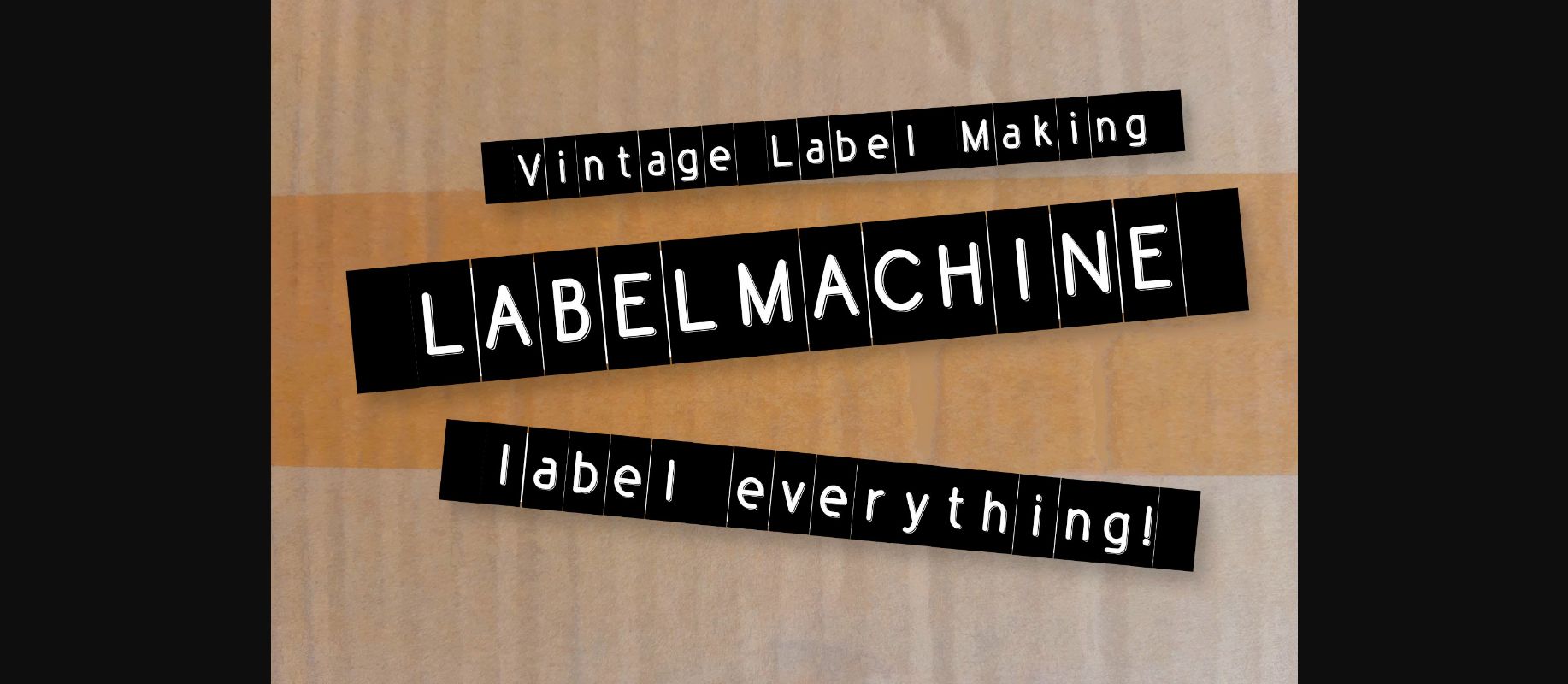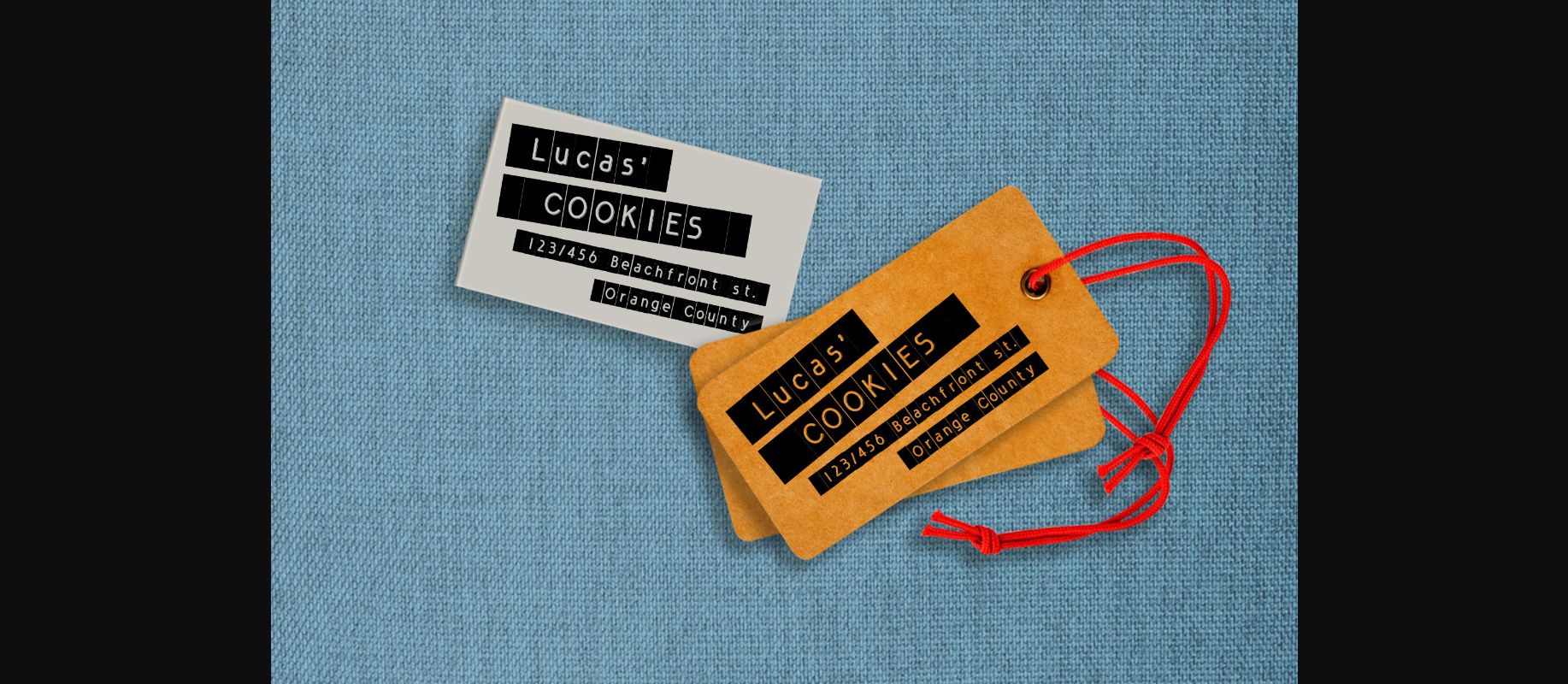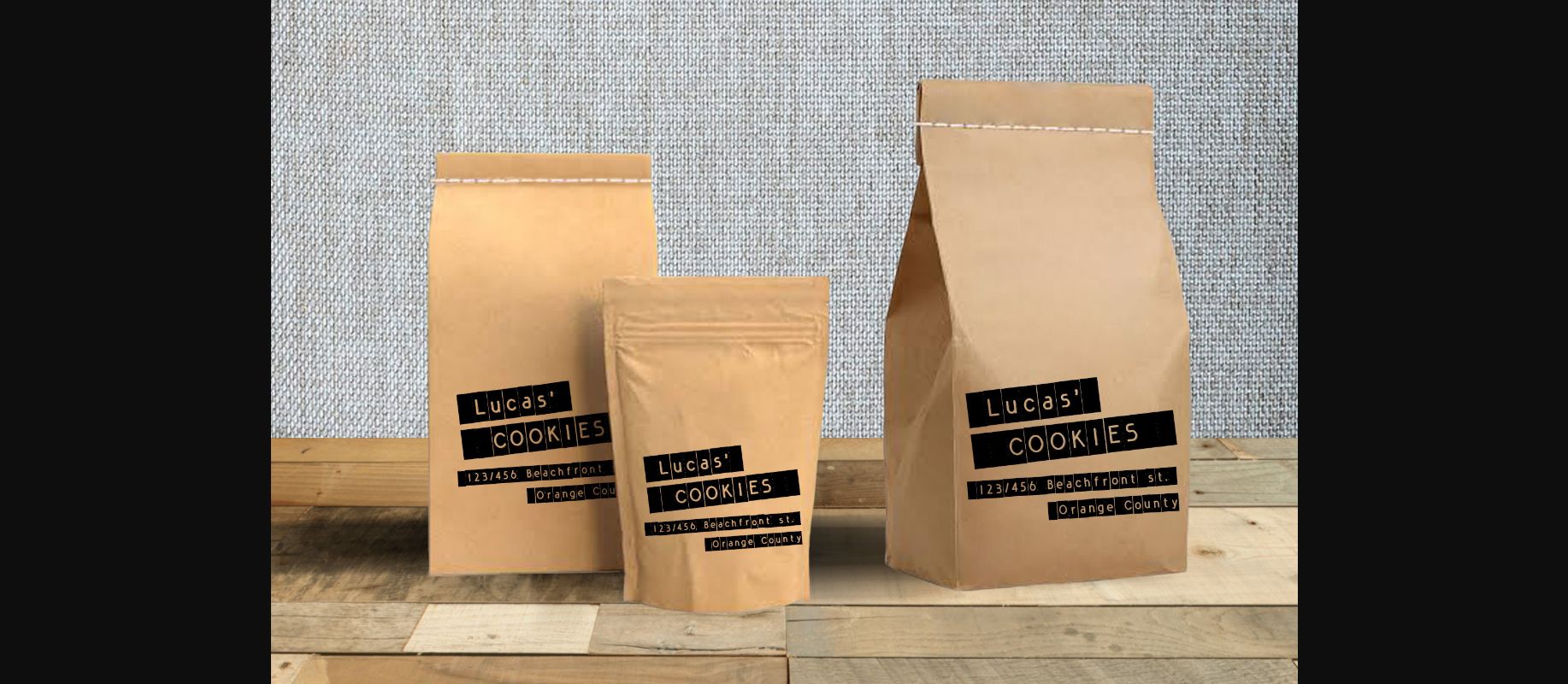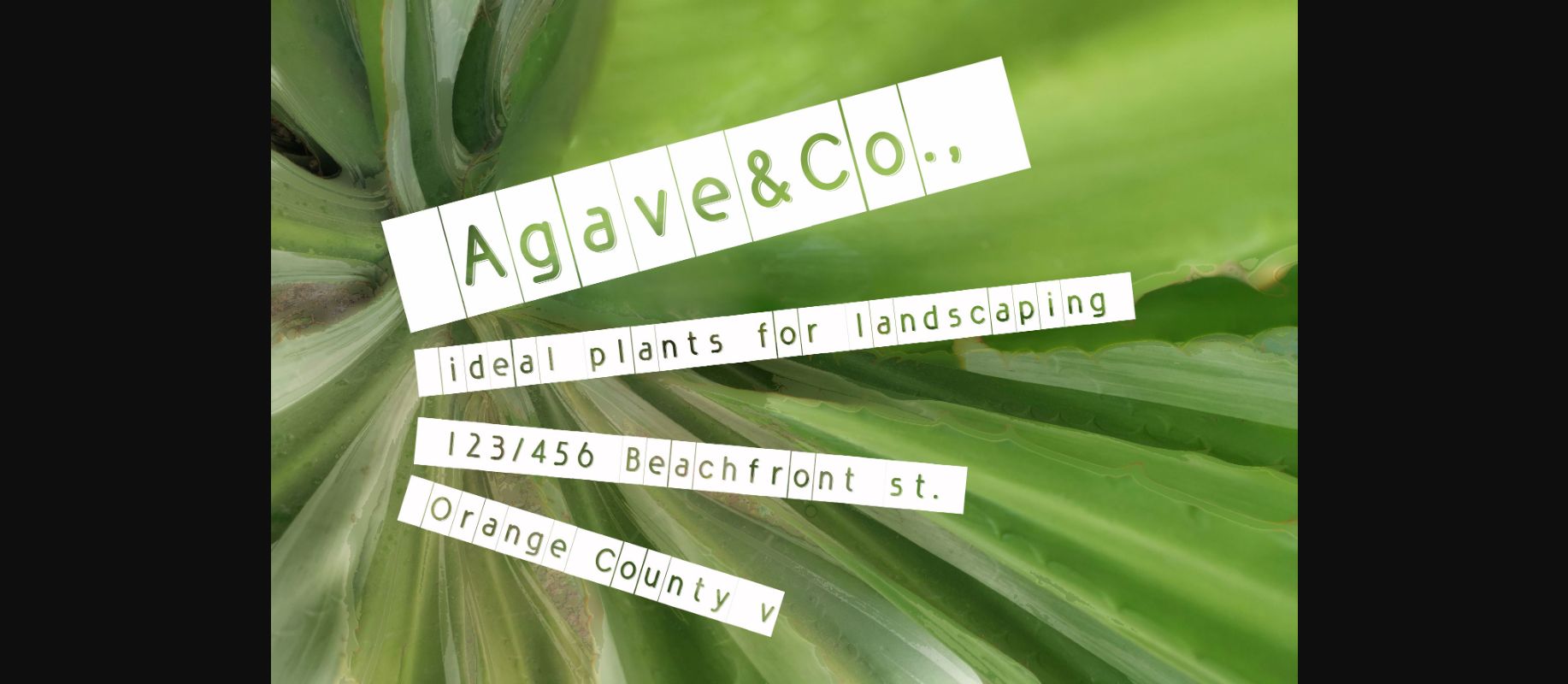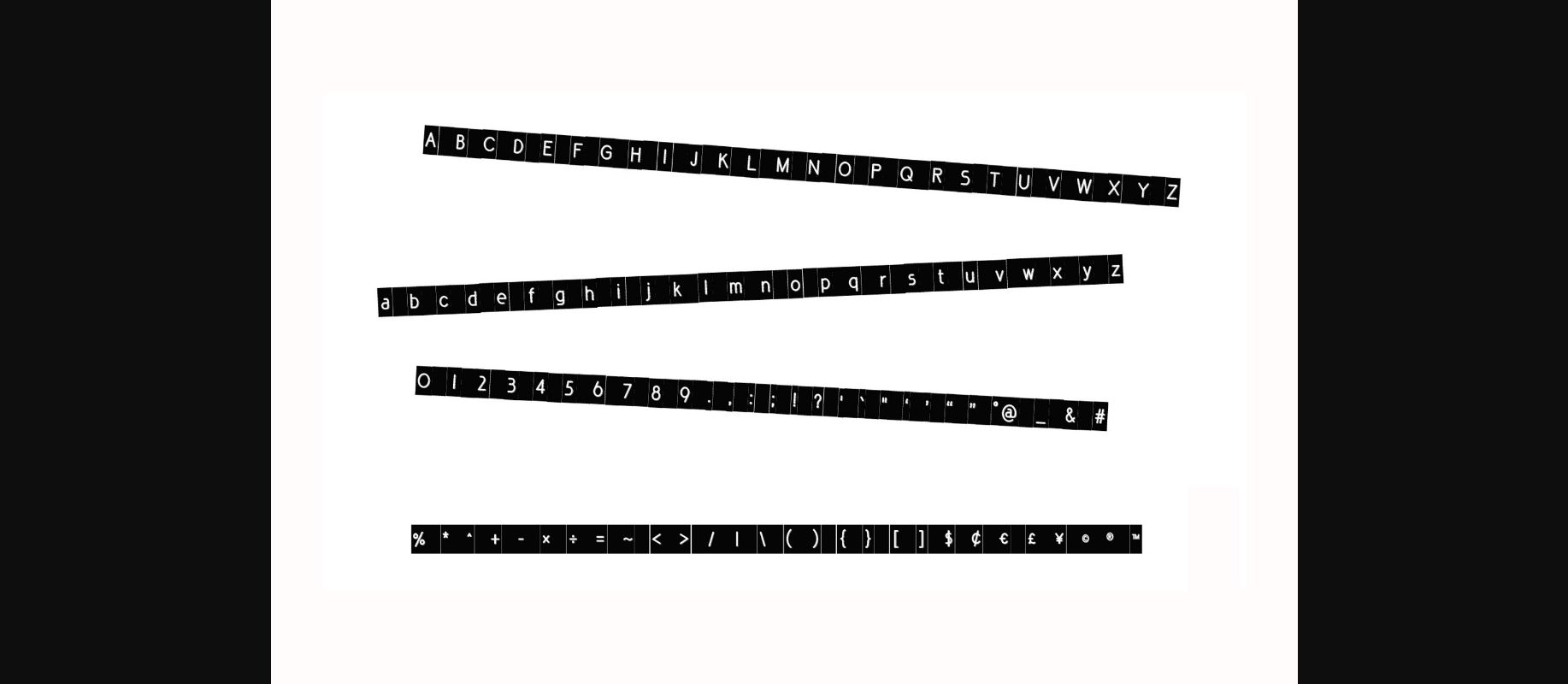
Label Machine Font
About Label Machine Font
Label Machine is a cool, adaptable and simple decorative font. Its natural and unique style makes it incredibly fitting to a large pool of designs. The only limit is your imagination!